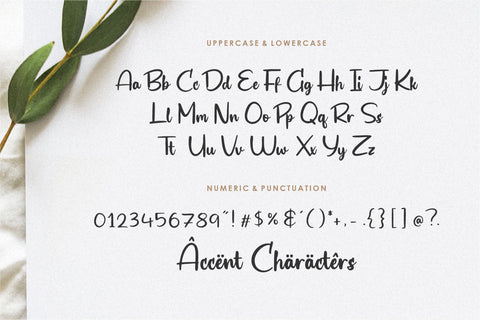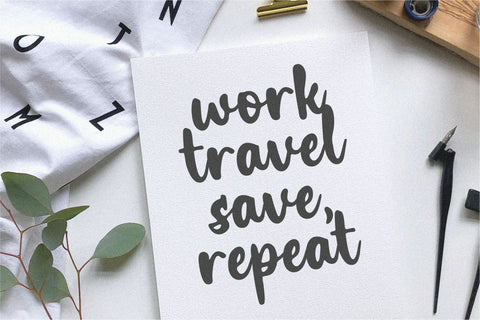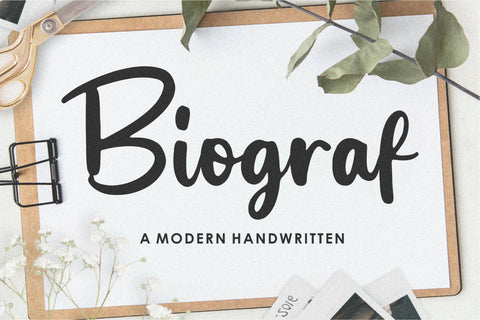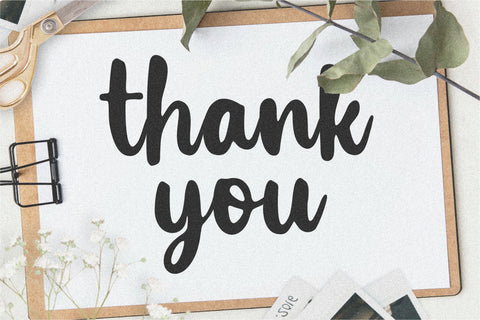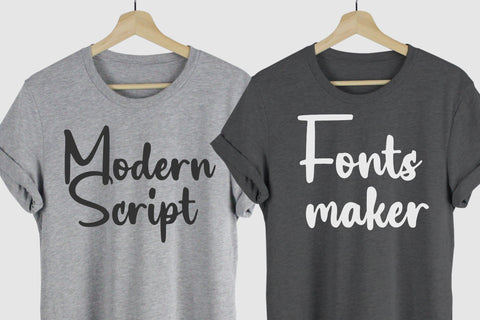
Biograf Modern Handwritten Font
Proudly Present, Biograf Font.
Biograf is a Modern Handwritten Font.
Biograf is perfect for product packaging, branding project, megazine, social media, wedding, or just used to express words above the background.